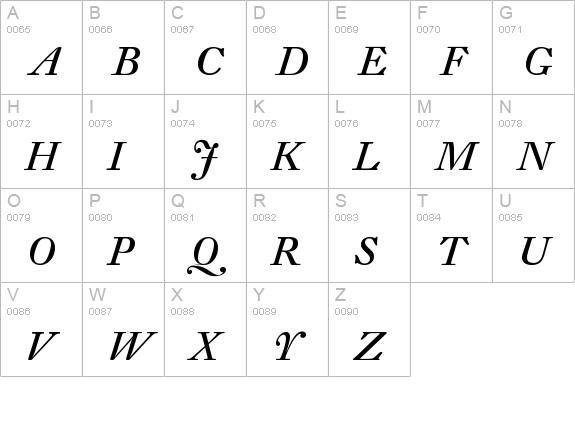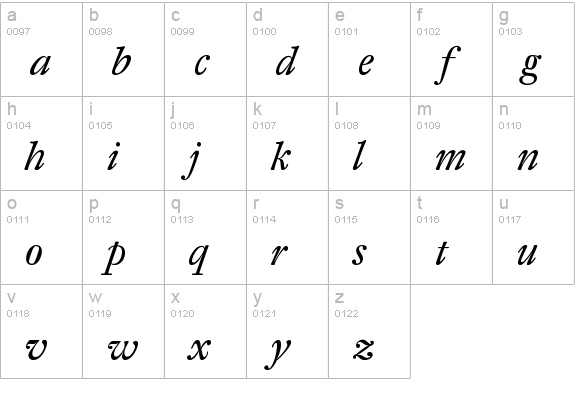
DTL Fleischmann ST Italic Font Details
DTL Fleischmann ST Italic is a distinctive, italic variant in the DTL typeface family \xE2\x80\x94 well suited to design and typography projects.